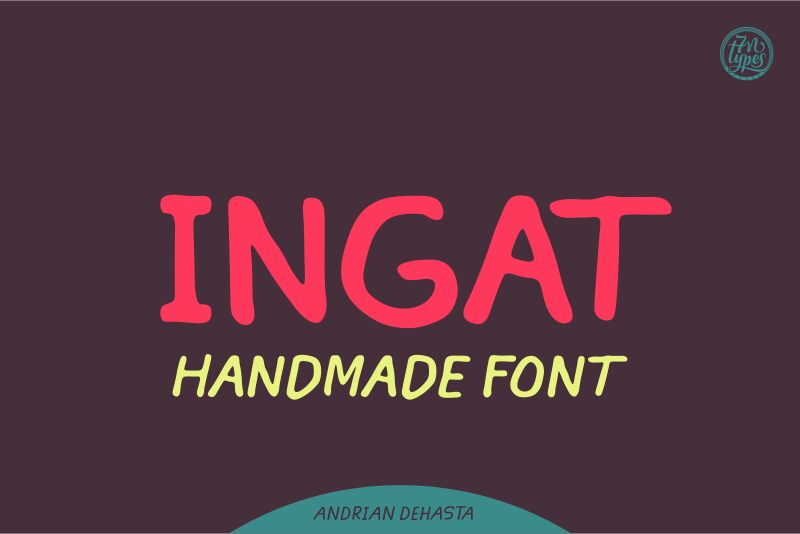
Andrian Dehasta & Situjuh Nazara designed the Ingat Font to present a friendly looking handmade font, which is appropriate for many design categories, most notably childrens designs. It highly legible and casually styled font that will add joy to your creative projects.